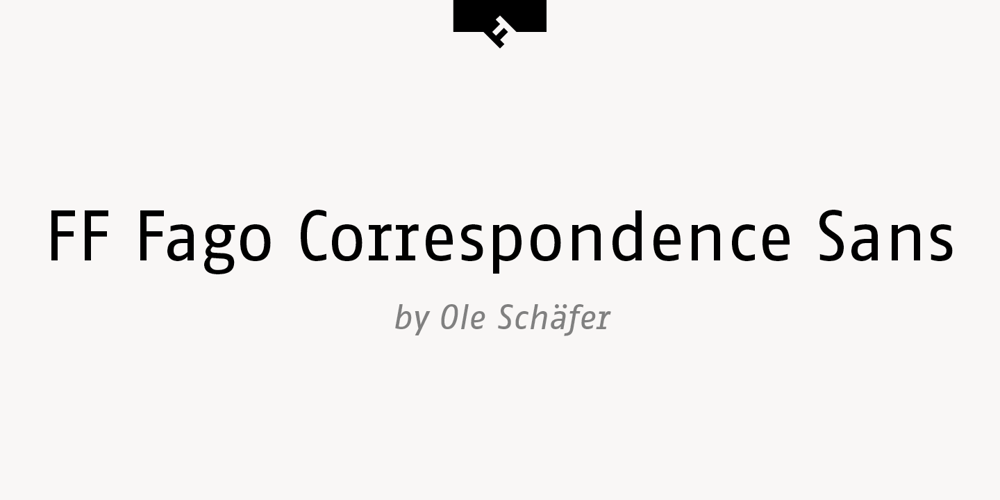
FF Fago Correspondence Sans
FF Fago Correspondence Sans Font Family was designed by Ole Schäfer, Andreas Eigendorf and published by FontFont. FF Fago Correspondence Sans contains 4 styles and family package options. German type designer Ole Schäfer created this sans FontFont in 2000. The family contains 4 weights: Regular, Italic, Bold, and Bold Italic and is ideally suited for advertising and packaging, editorial and publishing, logo, branding and creative industries as well as software and gaming. FF Fago Correspondence Sans provides advanced typographical support with features such as ligatures, alternate characters, case-sensitive forms, fractions, super- and subscript characters, and stylistic alternates. It comes with tabular lining figures. This FontFont is a member of the FF Fago super family, which also includes FF Fago, FF Fago Correspondence Serif, and FF Fago Monospaced.